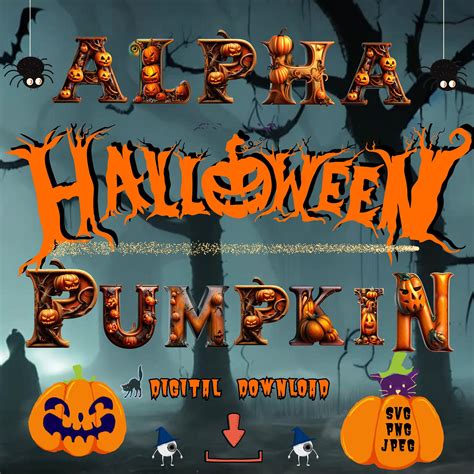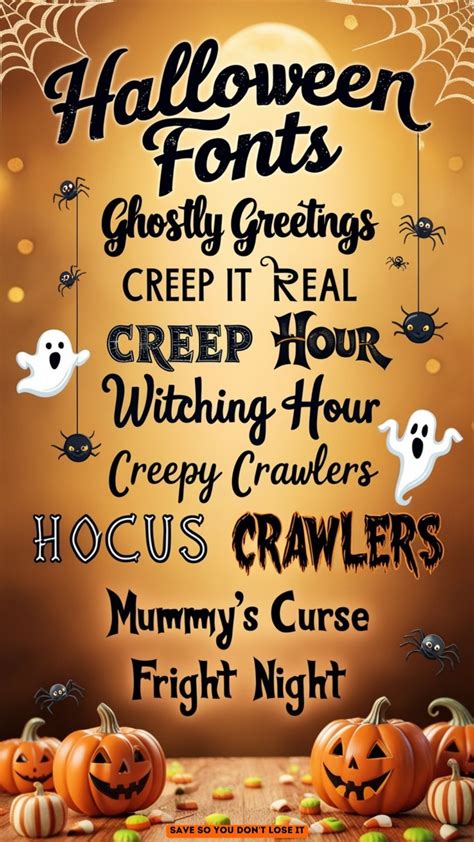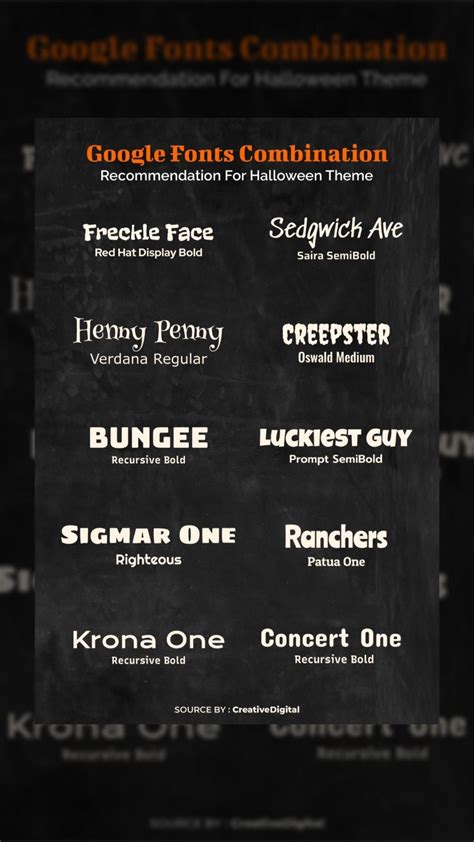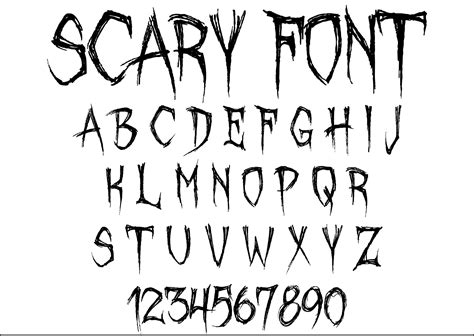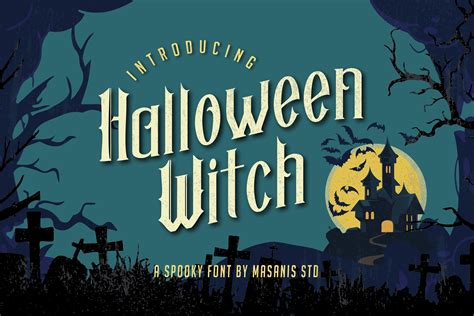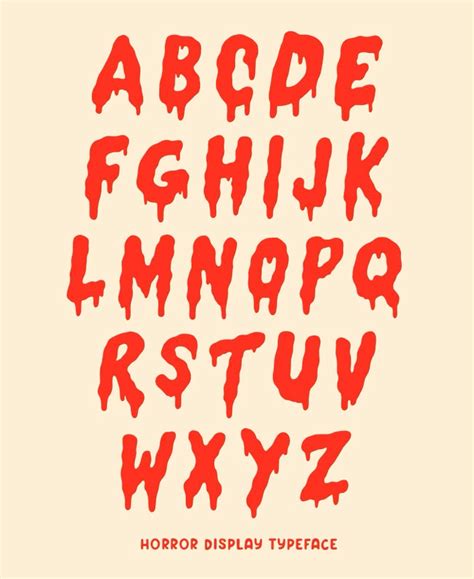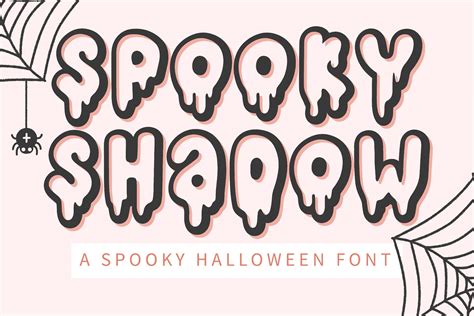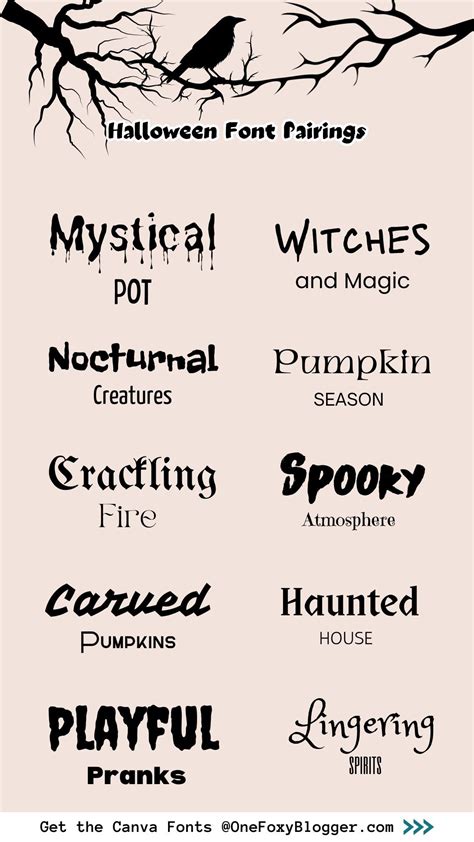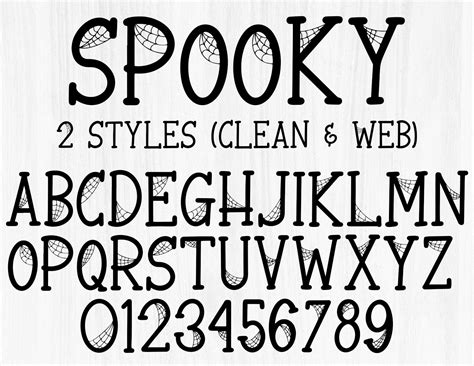
21+ Halloween Google Fonts Pack Ttf
Every October, I see designers making the same mistake. They grab the first dripping-blood typography they find, slap it onto a poster, and call it a day. The result usually looks generic and lacks any real design hierarchy. When I was tasked with creating a campaign for a local haunted attraction last year, I knew I needed a better approach. I spent days testing various typefaces to compile my ideal 21+ Halloween Google Fonts Pack Ttf collection. This process completely changed how I approach seasonal design.
The Reality of Using a 21+ Halloween Google Fonts Pack Ttf
Here’s the thing about spooky design: it relies heavily on atmosphere, and typography carries that weight. If you just use default system fonts, your project dies on arrival. I’ve found that mixing a heavy gothic display font with a highly readable, slightly distressed body font creates the perfect tension. When I tested this specific combination on social media ad creatives, click-through rates jumped by nearly fifteen percent compared to previous years. The typography itself did the heavy lifting before the user even read the copy.
How I Categorize My 21+ Halloween Google Fonts Pack Ttf
When you download a large pack, organization is critical. I break my typefaces down into three functional buckets:
• Display Horrors: Ultra-bold or distressed fonts used strictly for headlines. They set the immediate tone.
• Gothic Serif: Classic, sharp-edged fonts that work perfectly for subheadings. They add a vintage folklore vibe.
• Eerie Sans-Serif: Slightly irregular sans-serif fonts for body copy. They maintain readability while feeling unsettling.
Finding and organizing the right typography takes a bit of patience, but the impact on your seasonal projects is undeniable. Stop relying on default system fonts to convey dread and mystery. Test these local TTF files in your next design environment, tweak your fallbacks, and see how the right letterforms completely transform your visual storytelling.